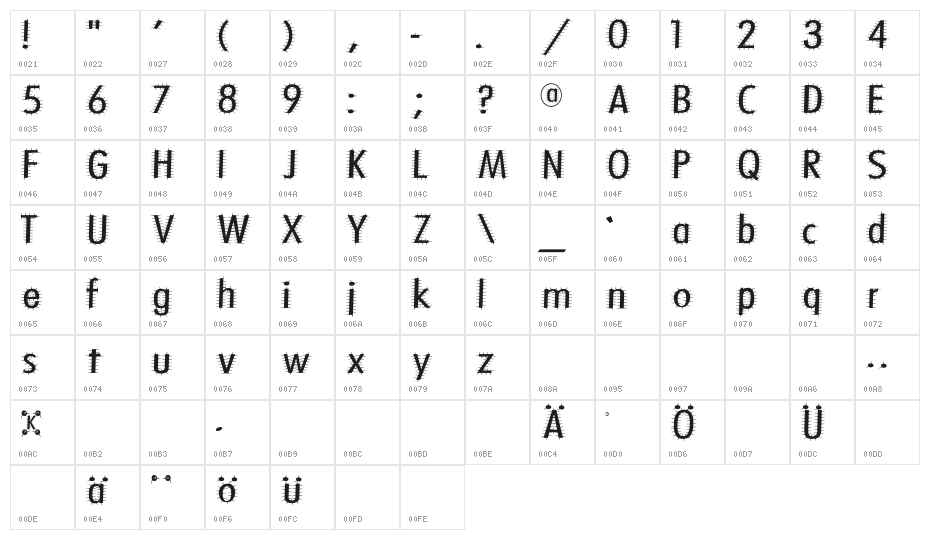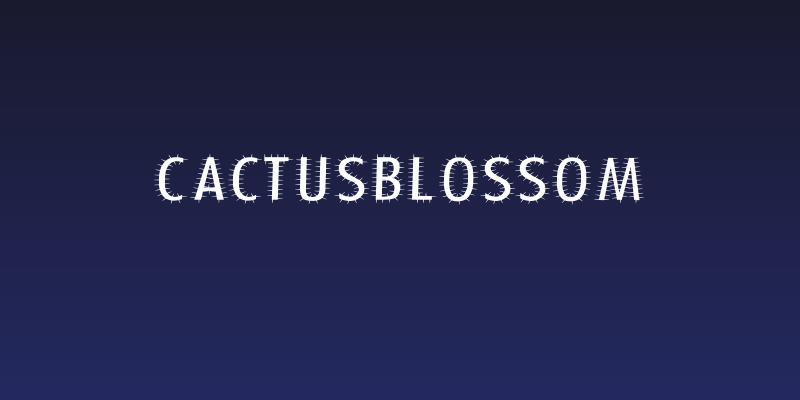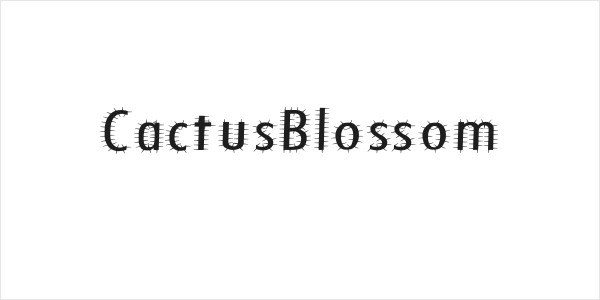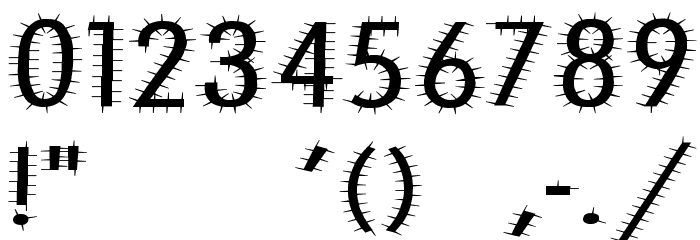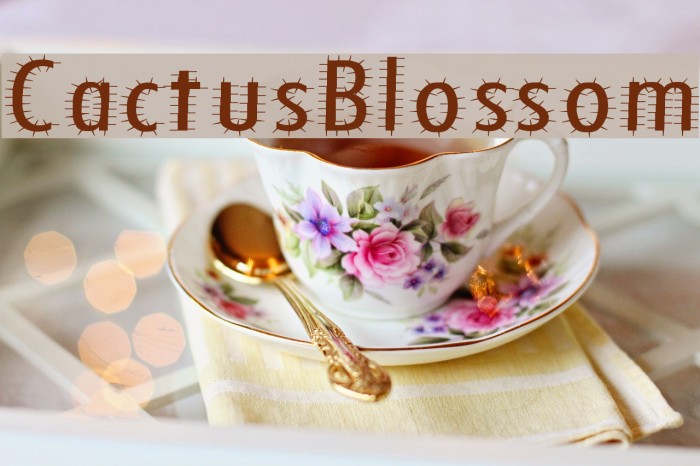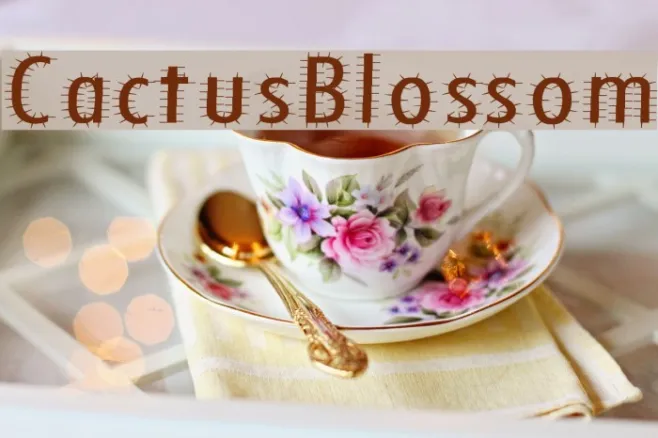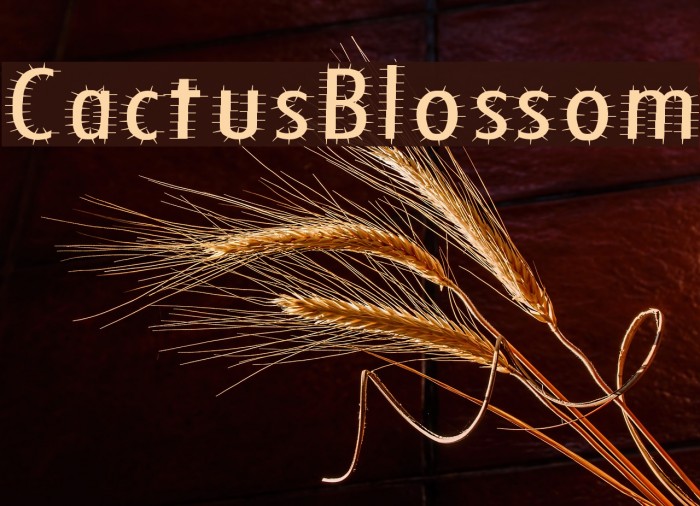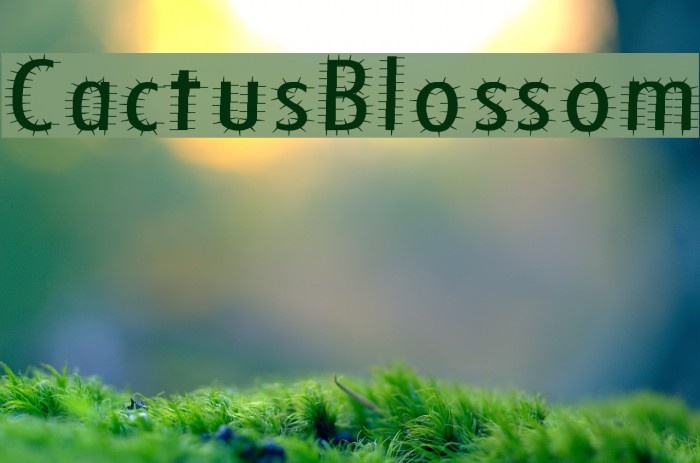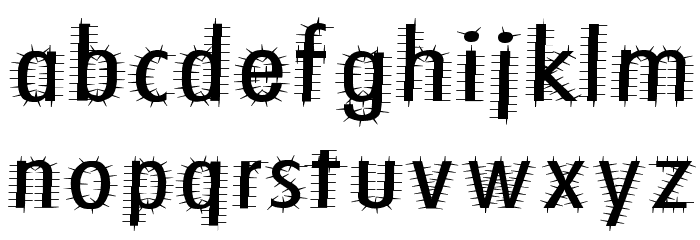
CactusBlossom Font
CactusBlossom Description
This font features a unique and playful design, characterized by its bold, spiky embellishments that resemble cactus thorns. The letters are structured with a solid, sans-serif base, giving them a modern and robust appearance. Each character is adorned with small, pointed extensions that add a decorative and whimsical touch, making it stand out in any design. The font maintains a consistent weight throughout, ensuring readability while still offering a distinctive style. Its quirky nature makes it ideal for creative projects that require a fun and eye-catching typeface.